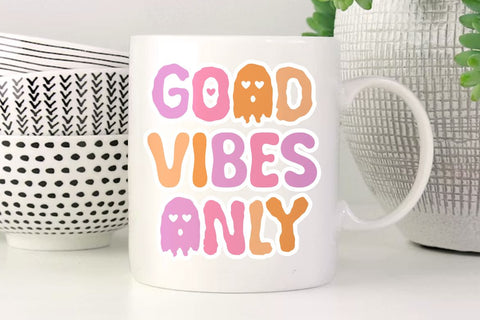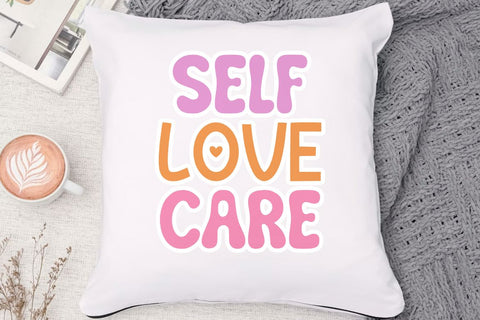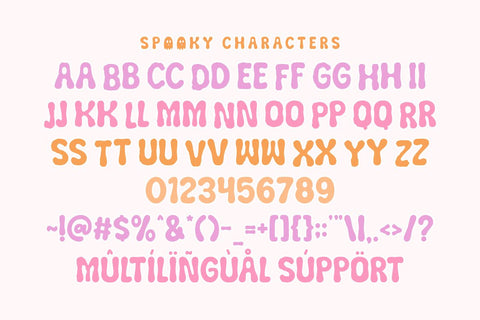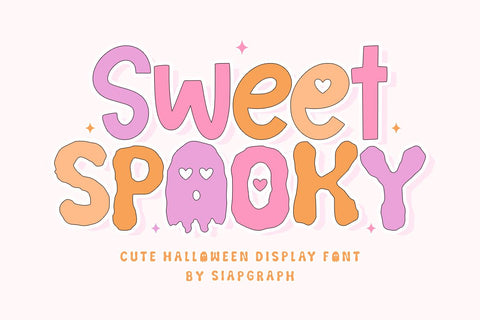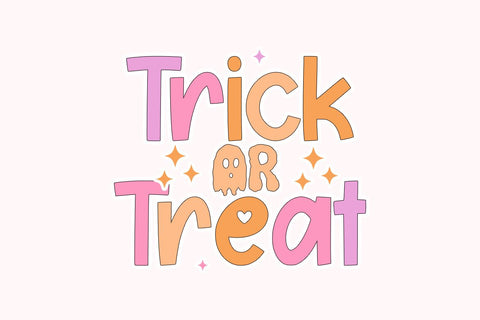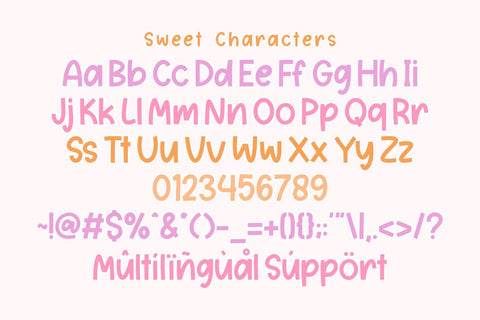
Sweet Spooky - Cute Halloween Display Font
Sweet Spooky is a delightful Cute Halloween Display Font specially crafted to bring a fun, friendly, and adorable vibe to your seasonal designs. Featuring bold, chunky letterforms paired with whimsical ghost character accents and lovely heart details, this typeface is perfectly balanced to make your projects stand out with a "spooky-cute" personality. Its clean and solid construction is optimized for the crafting community, ensuring a seamless and frustration-free experience for vinyl cutting, sublimation, and high-quality digital printing.
Perfect for: creating high-impact SVG cut files, Halloween party invitations, trick-or-treat tote bags, spooky-cute t-shirts, festive stickers, autumn mugs, and playful social media graphics. Whether you are a professional Print on Demand (POD) seller or working on a special DIY holiday project, this font provides the ideal balance of readability and whimsical charm.
Great for holiday themes such as Halloween, Autumn/Fall festivals, Children's costume parties, and Fall celebrations, adding a sweet, cheerful, and festively spooky personality to all your seasonal design collections!